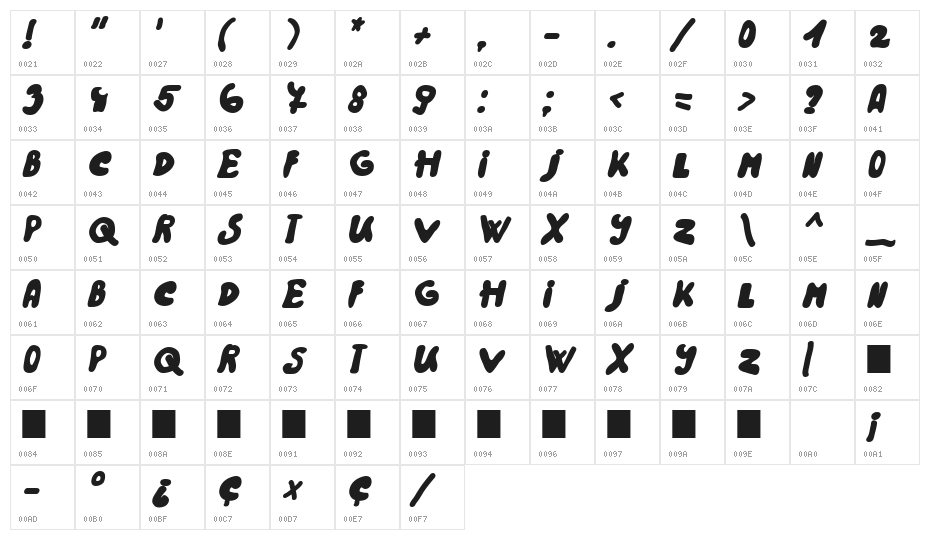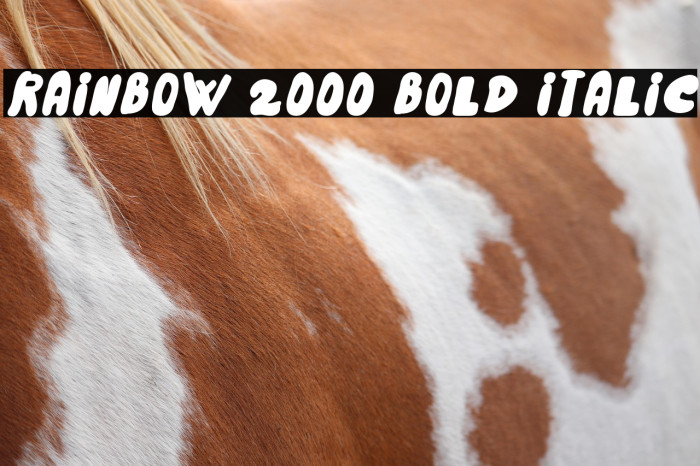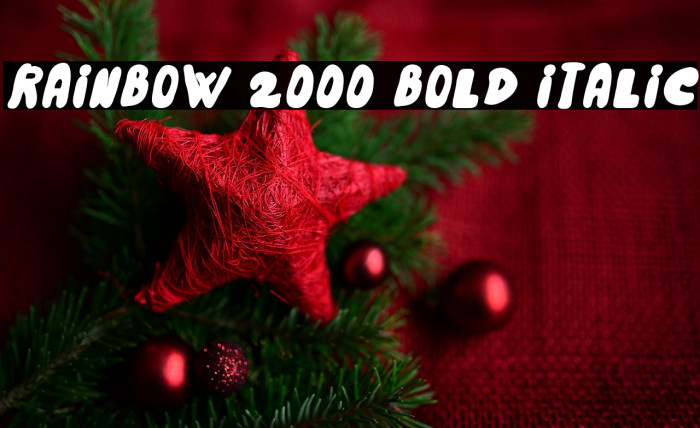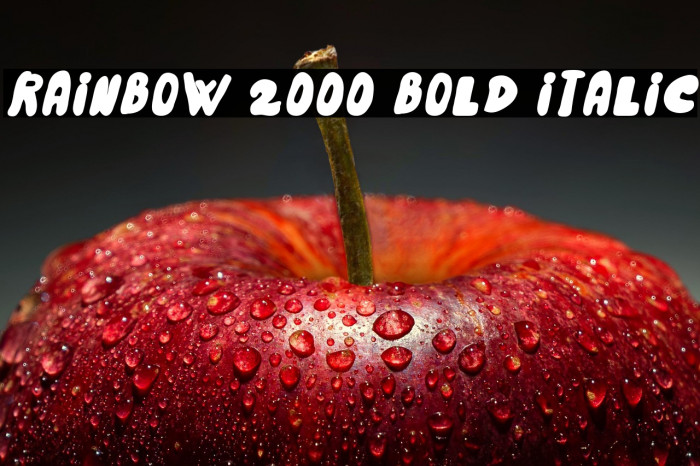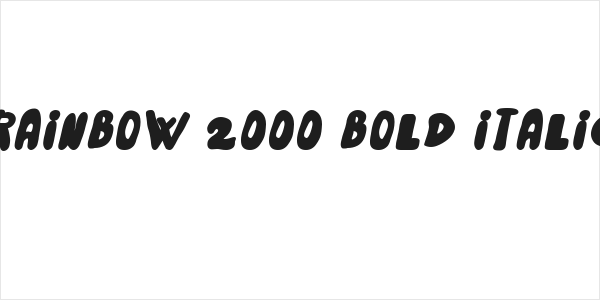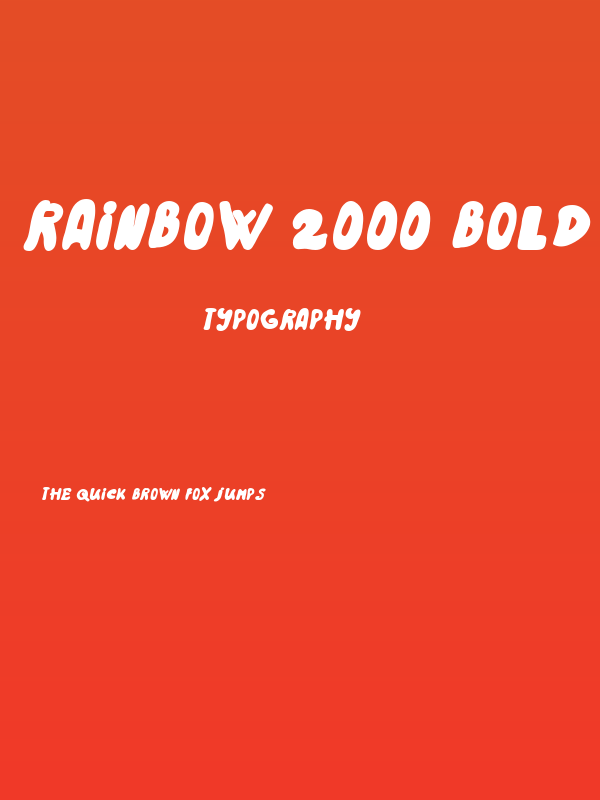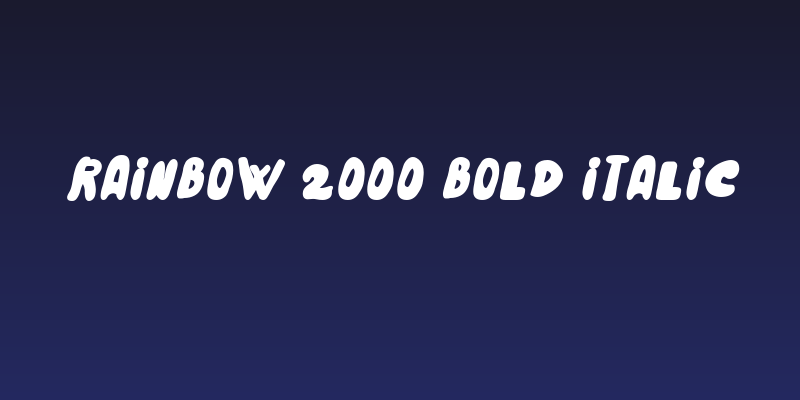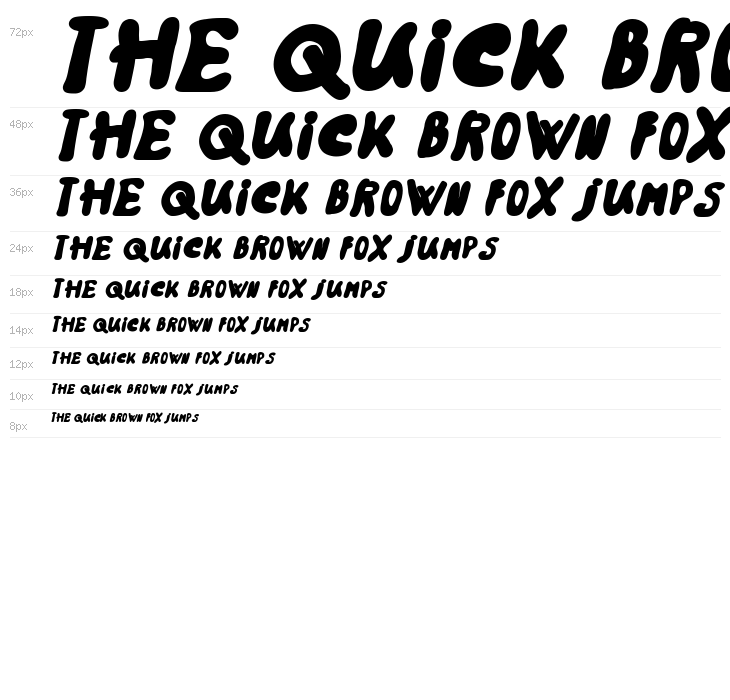
Rainbow 2000 Bold Italic Font
Rainbow 2000 Bold Italic Description
This font features a bold and playful style with a strong emphasis on rounded, thick strokes. The characters are designed with a slight slant, giving them an italicized appearance that adds a dynamic and energetic feel. The letters are closely spaced, enhancing the boldness and making the font suitable for eye-catching headlines or titles. The numbers and special characters maintain the same playful and bold aesthetic, ensuring consistency across all elements. This font's unique style makes it ideal for projects that require a fun and engaging visual impact.
| Proposed Projects | Perfect for children's books, playful branding, event posters, and creative social media graphics. |